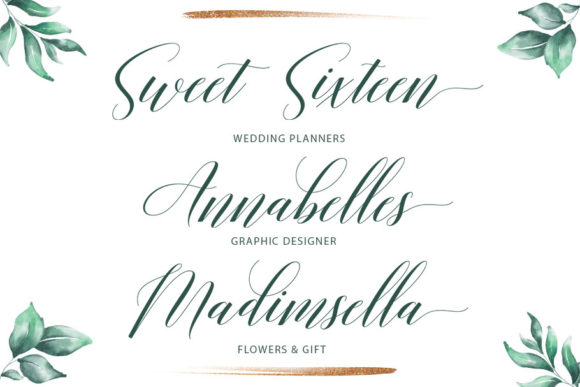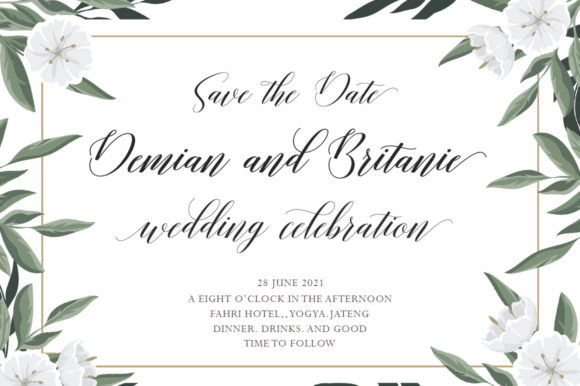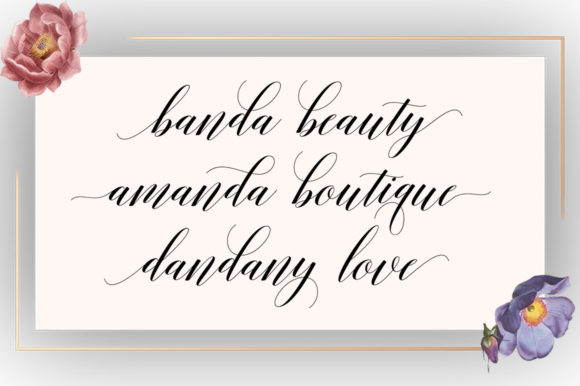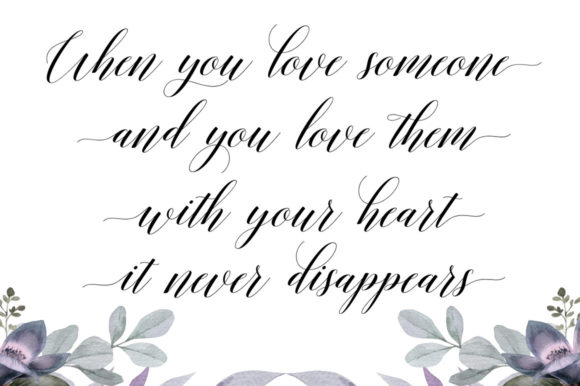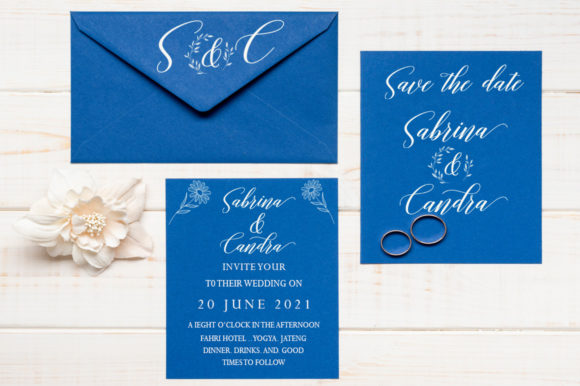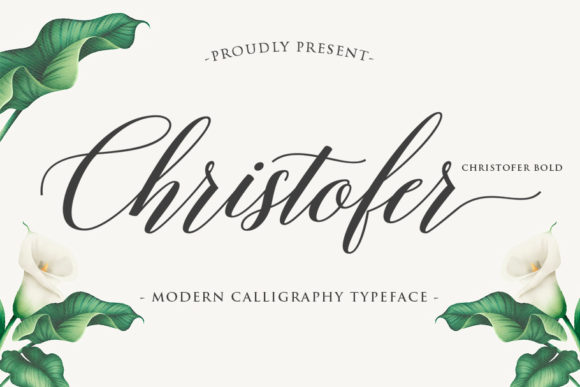
Introducing Christofer Font: The Ultimate Luxury Calligraphy Typeface
Are you looking for a font that adds a touch of elegance and sophistication to your design projects? Look no further than Christofer Font, a romantic and sweet calligraphy typeface that is sure to make your designs shine. With its unique characters that dance along the baseline, Christofer Font is the perfect choice for designers and crafters who want to add a luxury spark to their work.
What Makes Christofer Font So Special?
Christofer Font is a beautifully crafted calligraphy typeface that is designed to add a touch of luxury to any design project. Its unique characters are carefully crafted to dance along the baseline, creating a sense of movement and fluidity that is sure to capture the attention of your audience. Whether you’re working on a branding project, a wedding invitation, or a packaging design, Christofer Font is the perfect choice.
One of the best things about Christofer Font is that it is PUA (Private Use Area) encoded, which means that you can access all of the amazing glyphs and ligatures with ease. This makes it easy to create beautiful, high-quality designs without having to spend hours searching for the right characters. With Christofer Font, you can focus on creating stunning designs that showcase your creativity and skill.
Christofer Font is perfect for designers and crafters who want to add a touch of luxury to their work. Whether you’re working on a commercial project or a personal craft project, Christofer Font is the perfect choice. Its unique characters and elegant design make it perfect for a wide range of projects, including:
- Branding and logo design
- Packaging design
- Sign making and lettering
- Personal craft projects, such as scrapbooking and card making
Key Features of Christofer Font
Here are some of the key features that make Christofer Font so special:
- Romantic and sweet calligraphy typeface
- Characters that dance along the baseline
- Luxury and elegant design
- Perfect for a wide range of design projects